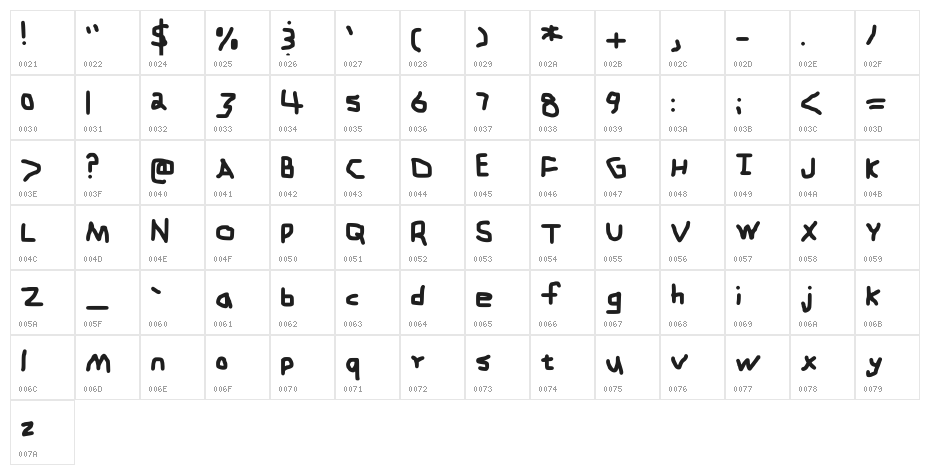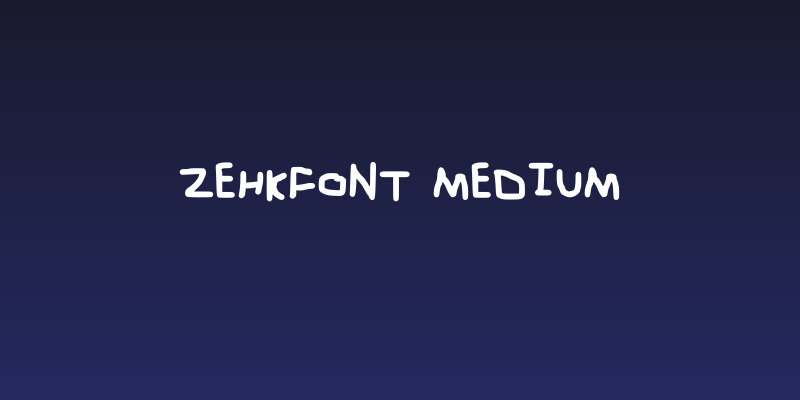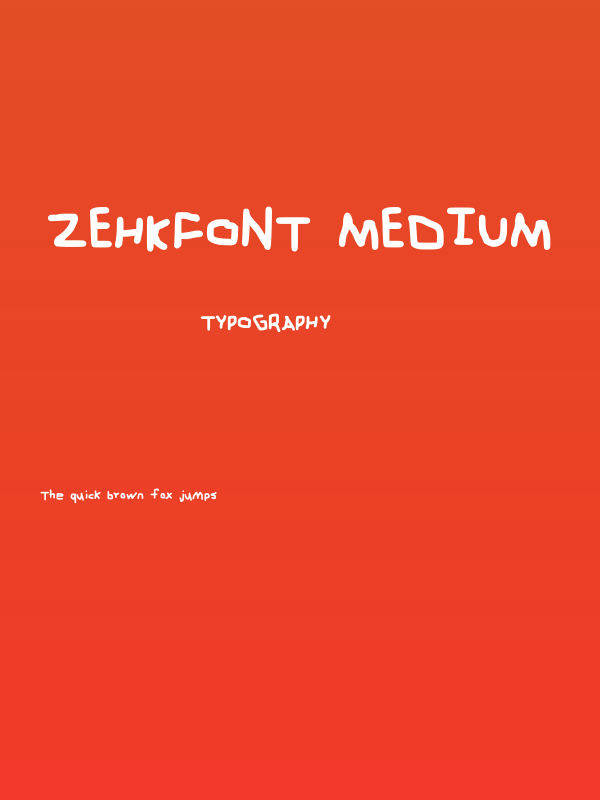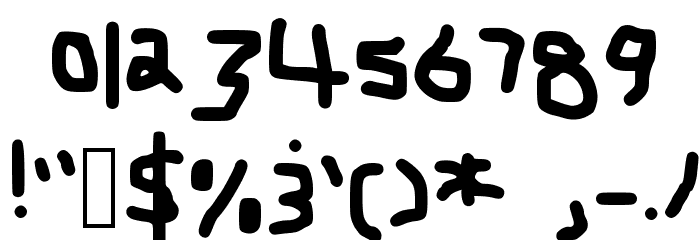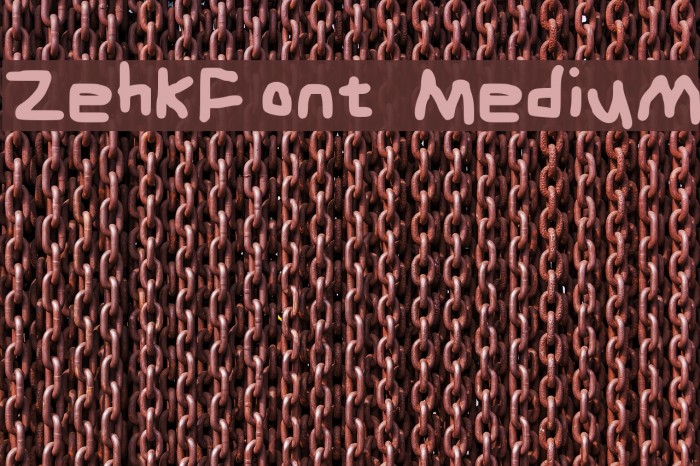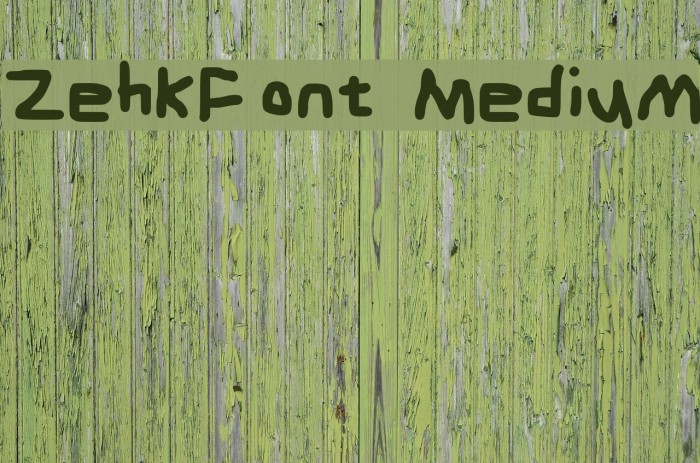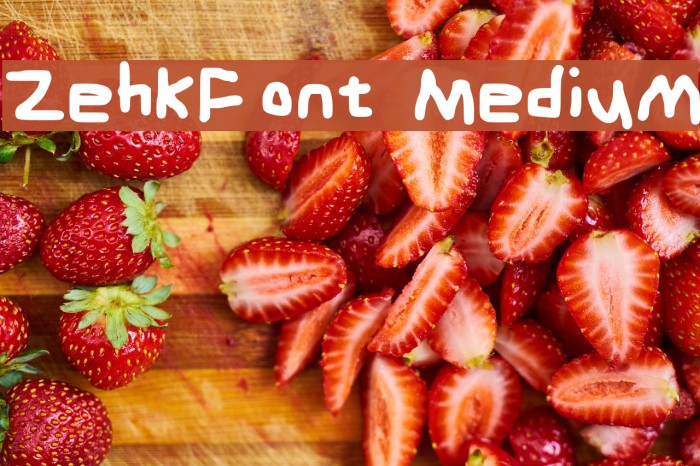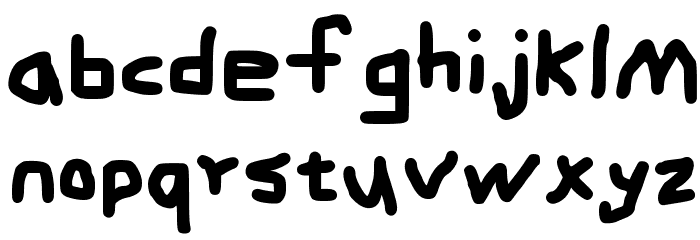
ZehkFont Medium Font
ZehkFont Medium Description
This font features a playful and casual handwritten style, characterized by its bold and rounded letterforms. The strokes are uneven, giving it a dynamic and organic feel. The uppercase and lowercase letters maintain a consistent style, with slightly exaggerated curves and angles that add to its whimsical appearance. Numbers and special characters follow the same design principles, ensuring a cohesive look across all elements. The font's informal nature makes it suitable for creative and fun projects.